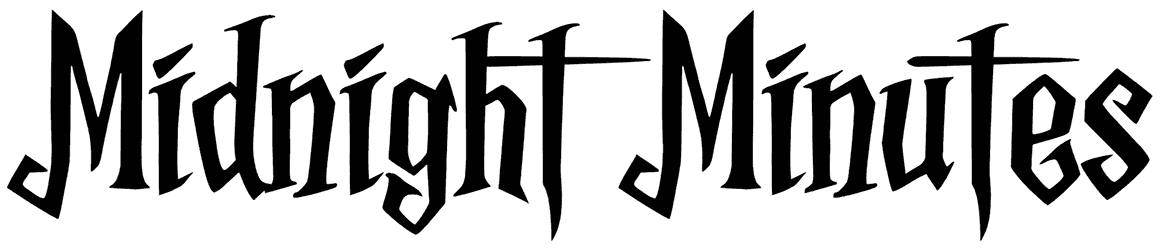
Midnight Minutes Font
Meet Midnight Minutes, a Halloween font with a mysterious and nefarious vibe. This witch font has a messy appearance and broken lines that can give an attractive look to the design. Although Midnight Minutes doesn’t have most of the punctuation, it is an interesting pickup for a lot of designs, for instance, foregrounds, flyers, horror movies, games, or similar. Let’s be mystic and unforgettable.